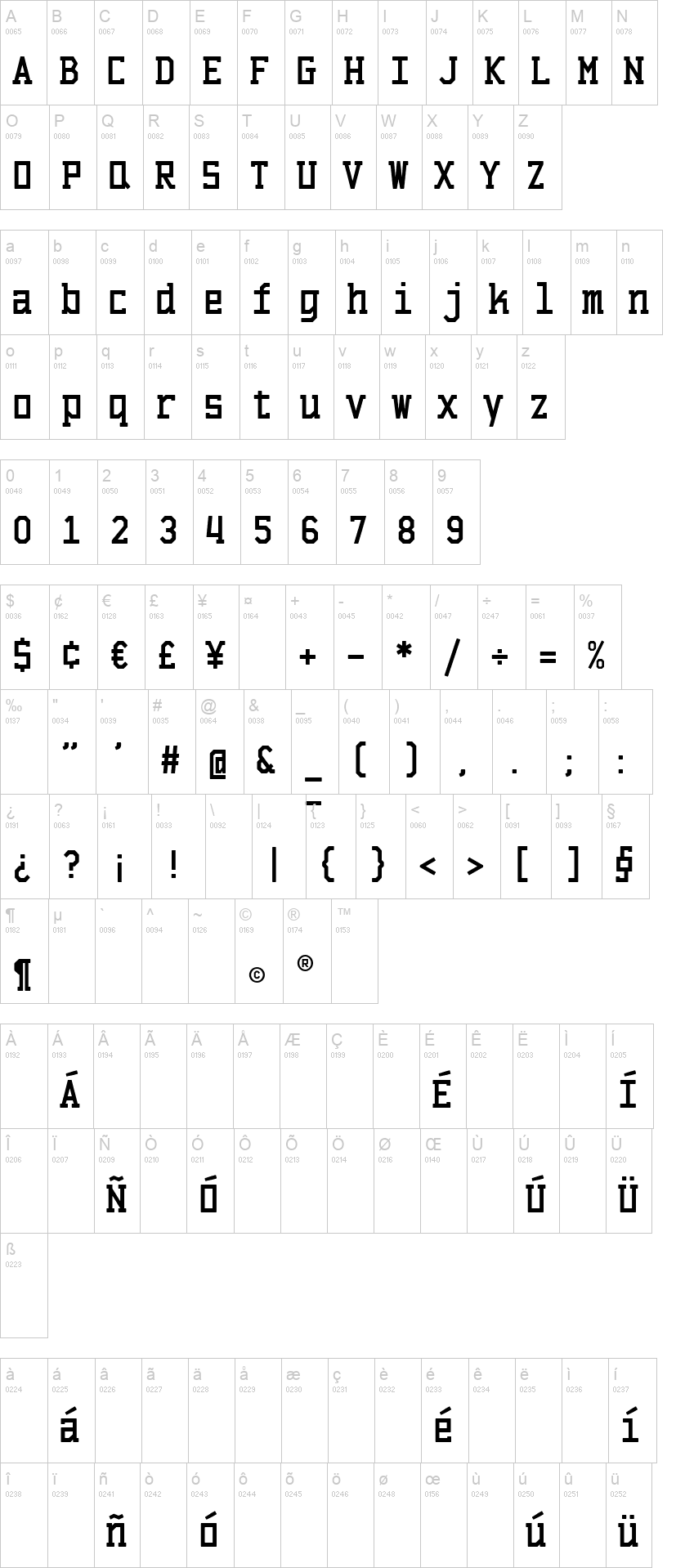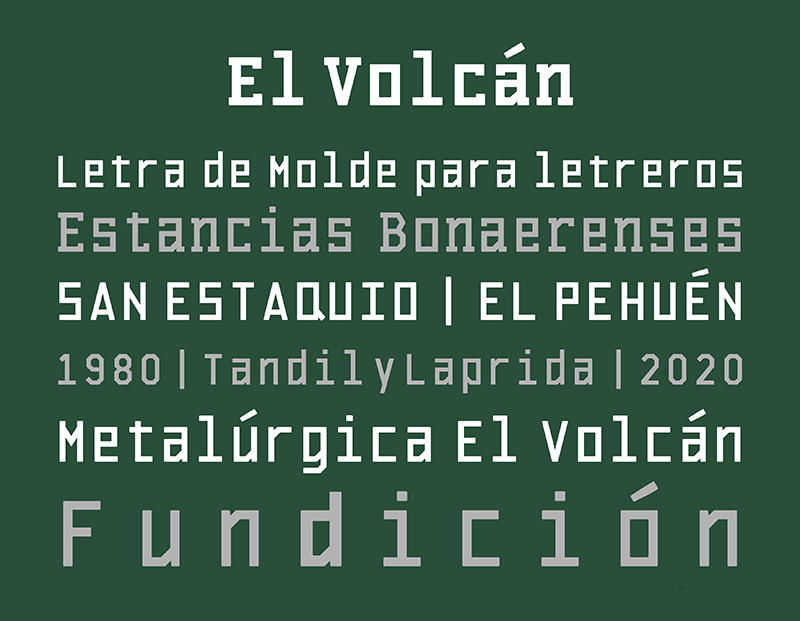
EL_VOLCAN_black_mecana.ttfNote of the authorFamily for titles based on ranch signs of the Province of Buenos Aires manufactured by the metallurgical El Volcán (Tandil, Buenos Aires, Argentina). The research on which the design is based was carried out by Octavio Osores. Geometric, uniform stroke and monospaced for the sana serif and Mecana styles, and the normal and black variables. The sign coverage corresponds to Dogma 580, by Vicente Lamónaca